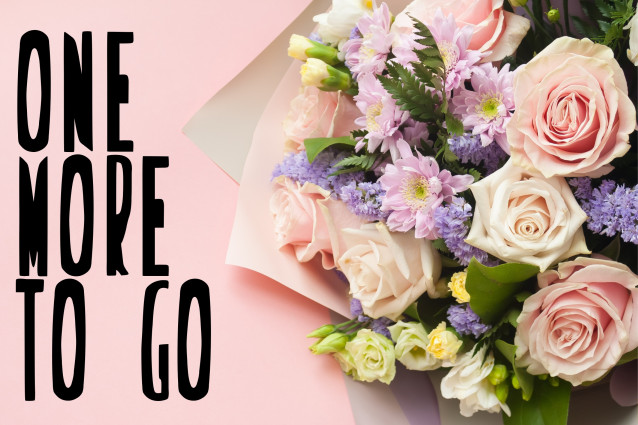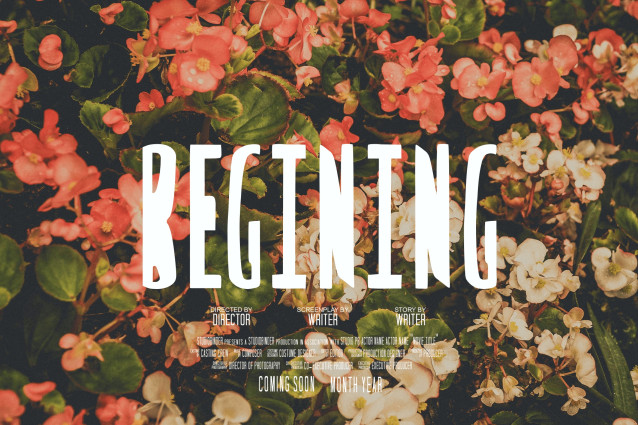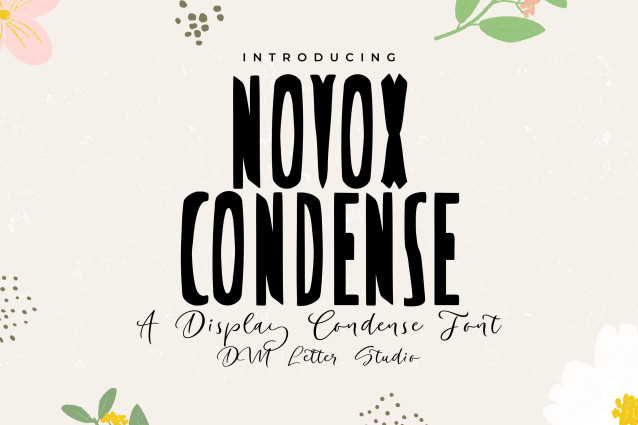
Novox Condense Font
Novox Condense Font is a sleek and modern condensed typeface designed for bold, clean compositions. With its tall, space-saving letterforms and geometric precision, it brings a professional yet contemporary feel to branding, headlines, packaging, editorials, and social media content. Whether you’re designing logos or working with tight layouts, Novox Condense ensures legibility and impact.